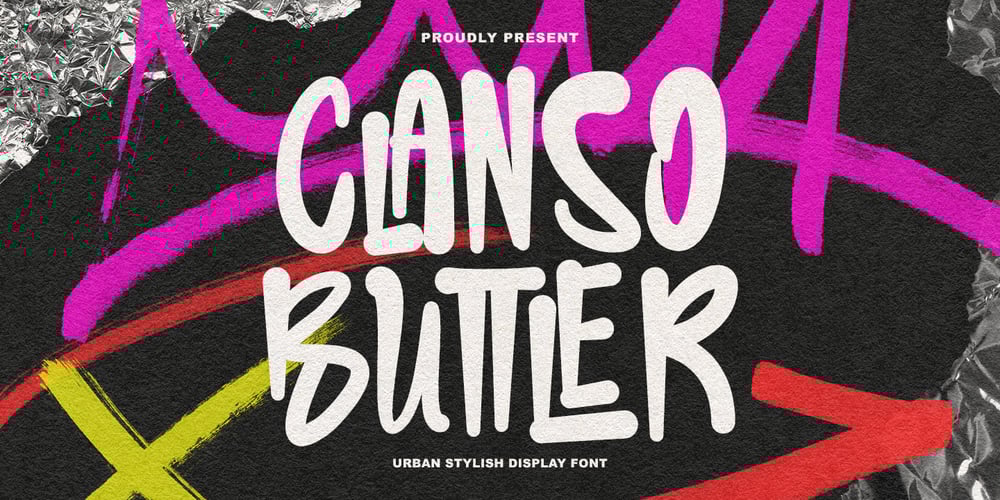
Clanso Buttler Font Family was designed by Gilang Maulana and published by Maulana Creative. Clanso Buttler contains 1 styles and family package options. Clanso Buttler urban stylish display font, fun character with a bit of ligatures. To give you an extra creative work. Clanso Buttler urban stylish display font support multilingual more than 100+ language.Cheers, Maulana Creative